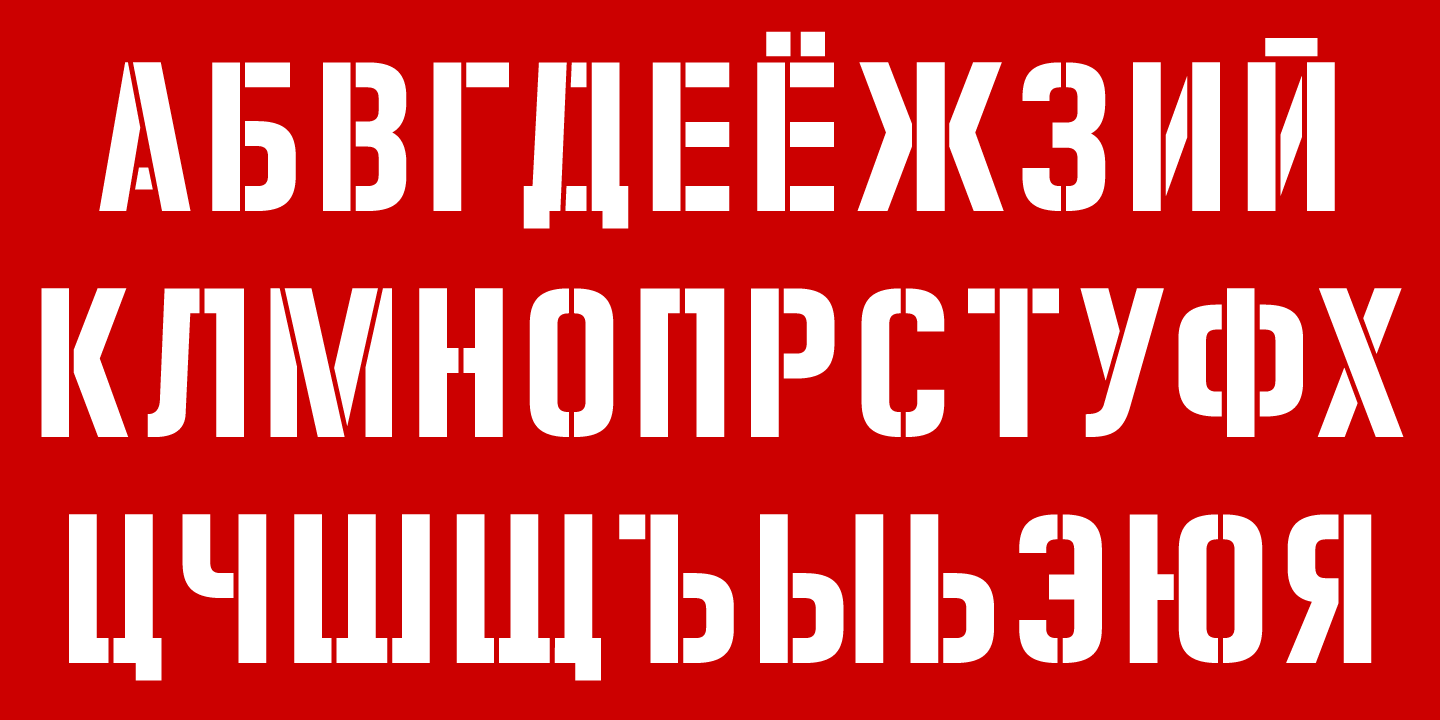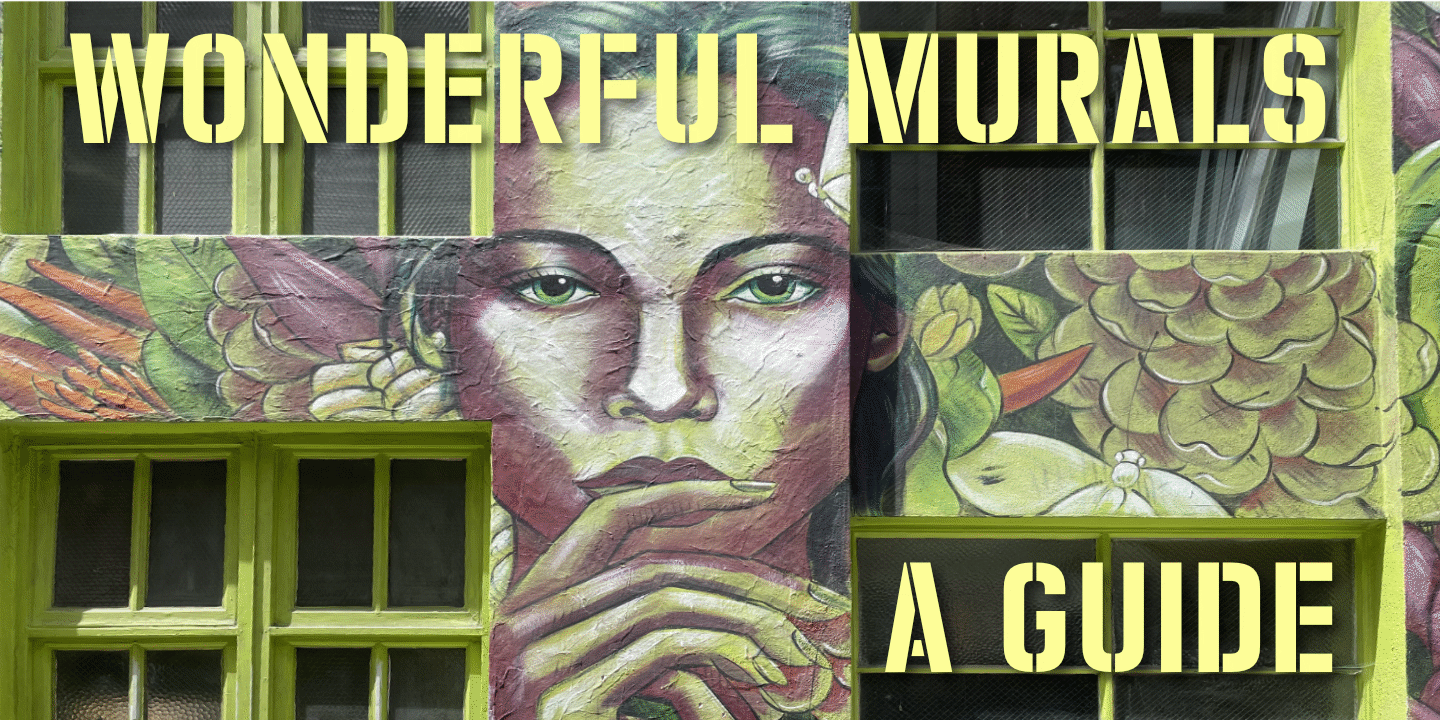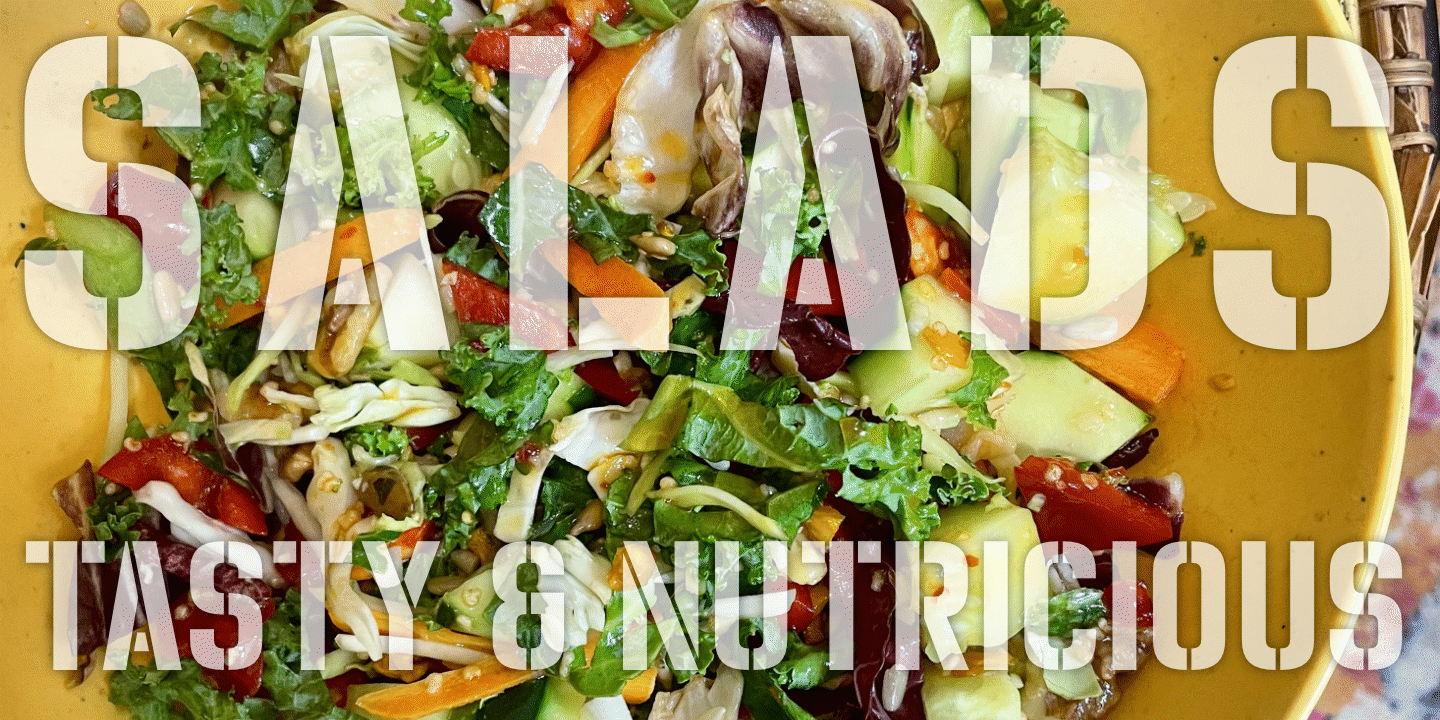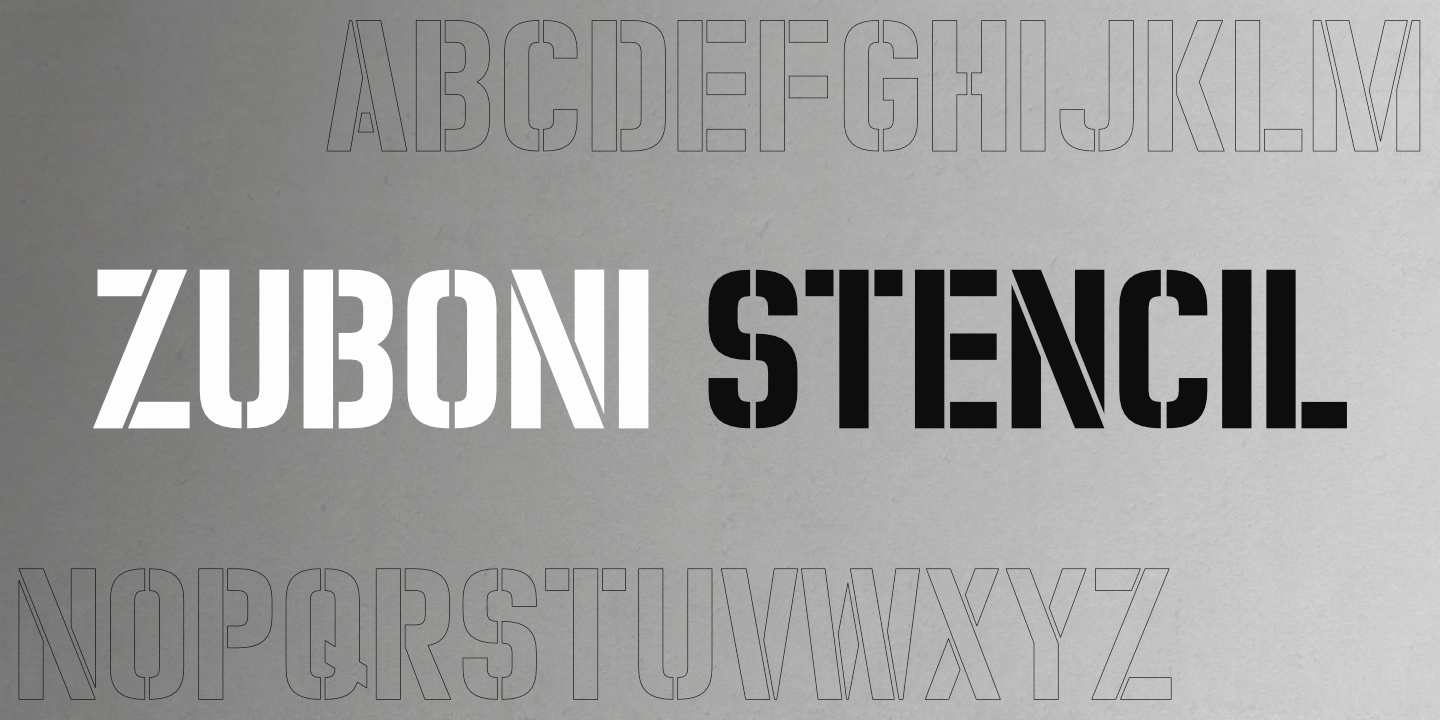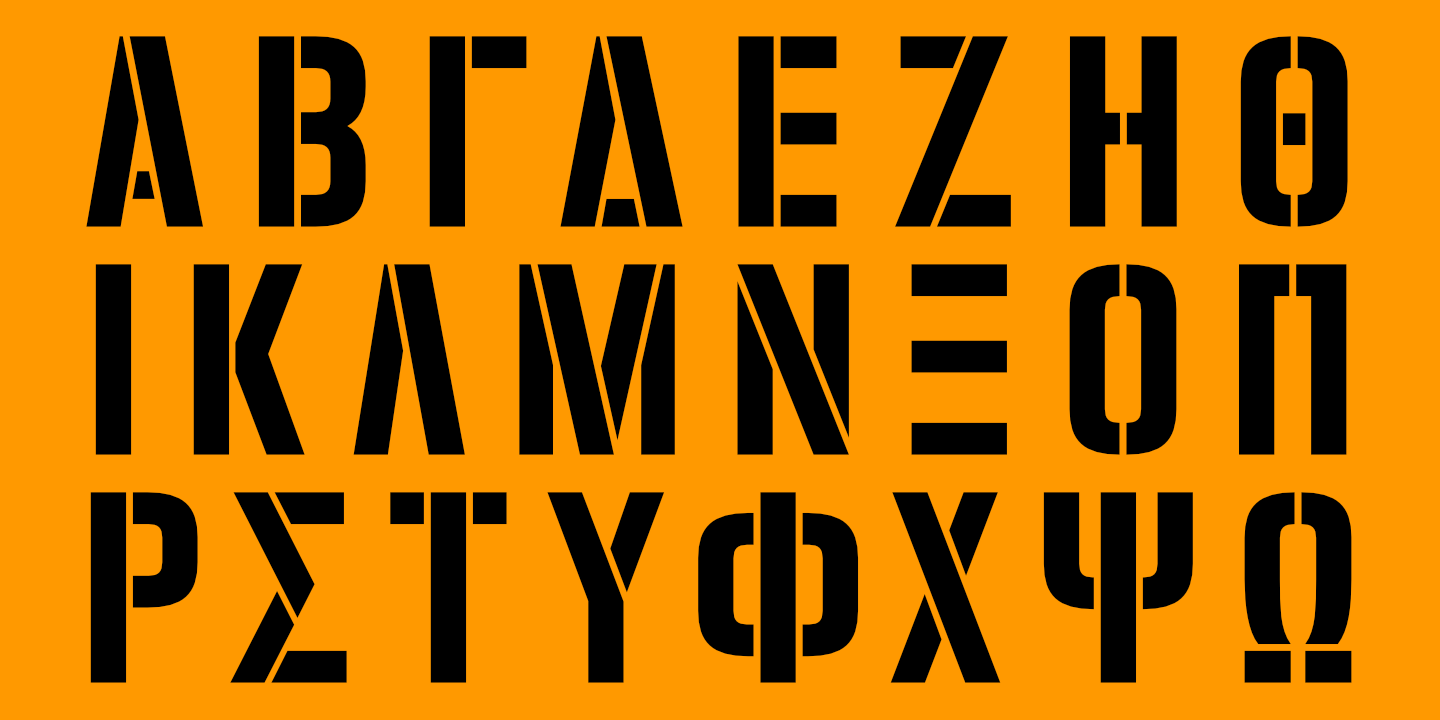
blank Latin Alphabet
Zuboni Stencil: Basic Latin alphabet. See Glyphs for details. blank
blank Russian Alphabet
Zuboni Stencil supports most languages that use the Cyrillic alphabet. See Glyphs for details. blank
blank Greek Alphabet
Zuboni Stencil supports modern (monotonic) Greek. See Glyphs for details. blank
Numerals, Punctuation, etc
UDHR
Zuboni Stencil supports most European languages. See Glyphs for details.
Stacked Text
Notice that light text on a dark background appears slightly heavier than dark text on a light background. blank
Peace Lily
Filosofía
Zuboni Stencil, used here with Shàngó Sans Regular. blank
Chicken Tacos
Diacritics
Dr. Zhivago
Diacritics
Graffiti
Fontname poster